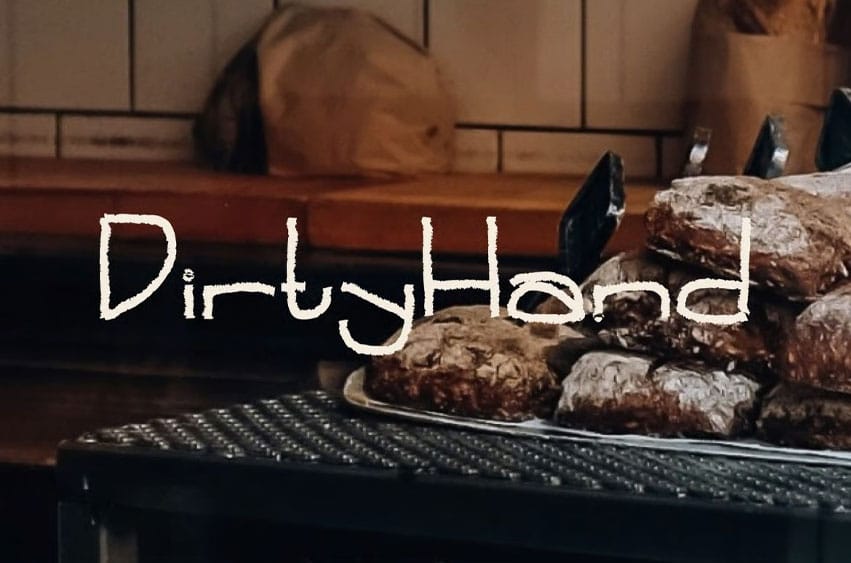
Dirty Hand Font is a unique, organic, and rustic handwritten display font designed to bring an authentic, handcrafted feel to your creative projects. Featuring raw, chalk-like textures and playful letterforms, this typeface perfectly captures the charm of artisan craft, home-style bakery signs, and bold modern branding.
Whether you are designing eye-catching storefront signage, product packaging, menu boards, poster designs, or social media graphics, Dirty Hand adds a distinctive human touch and personality that stands out instantly.
- Uppercase & Lowercase Letters: Complete character set with a distinct handwritten design.
- Numbers & Punctuation: Includes full numeric set (0-9) and essential symbols/punctuation marks.
- Authentic Texture: Textured stroke style that creates a realistic chalk, crayon, or hand-drawn effect.
- Versatile Application: Perfect for bakeries, cafes, food packaging, headlines, posters, branding, and quotes.